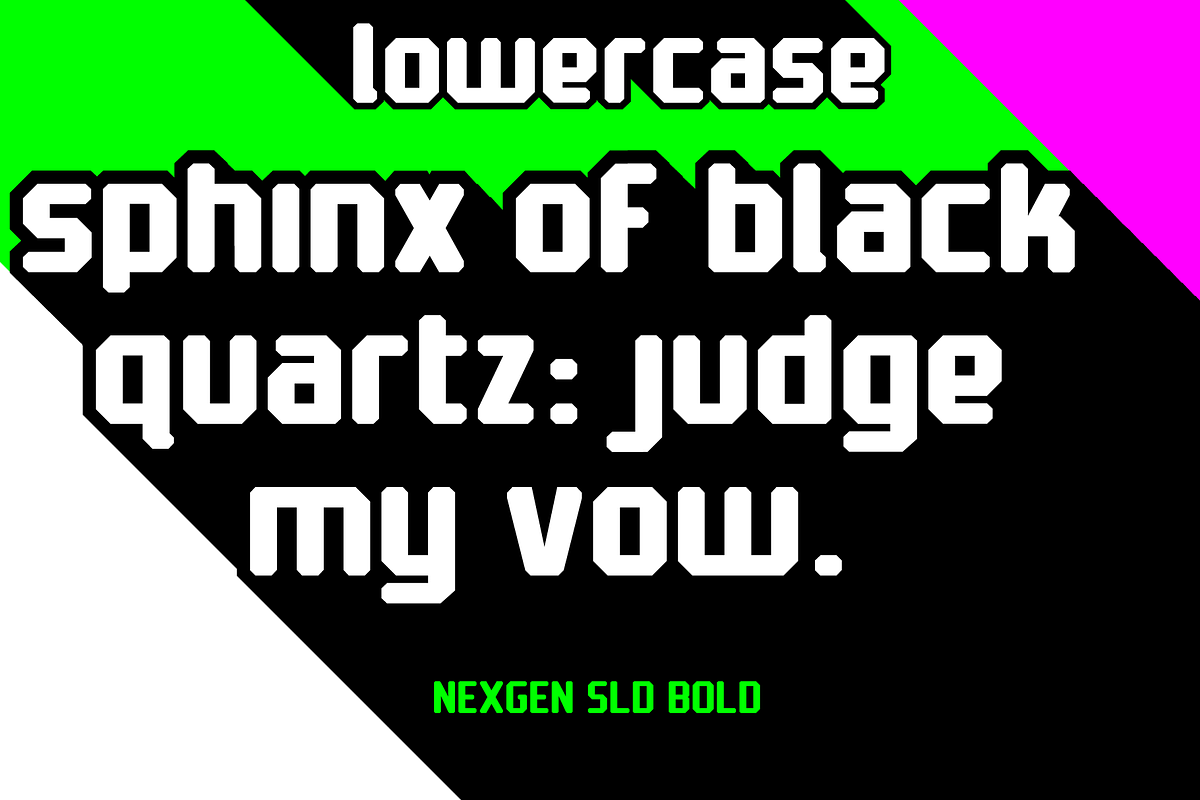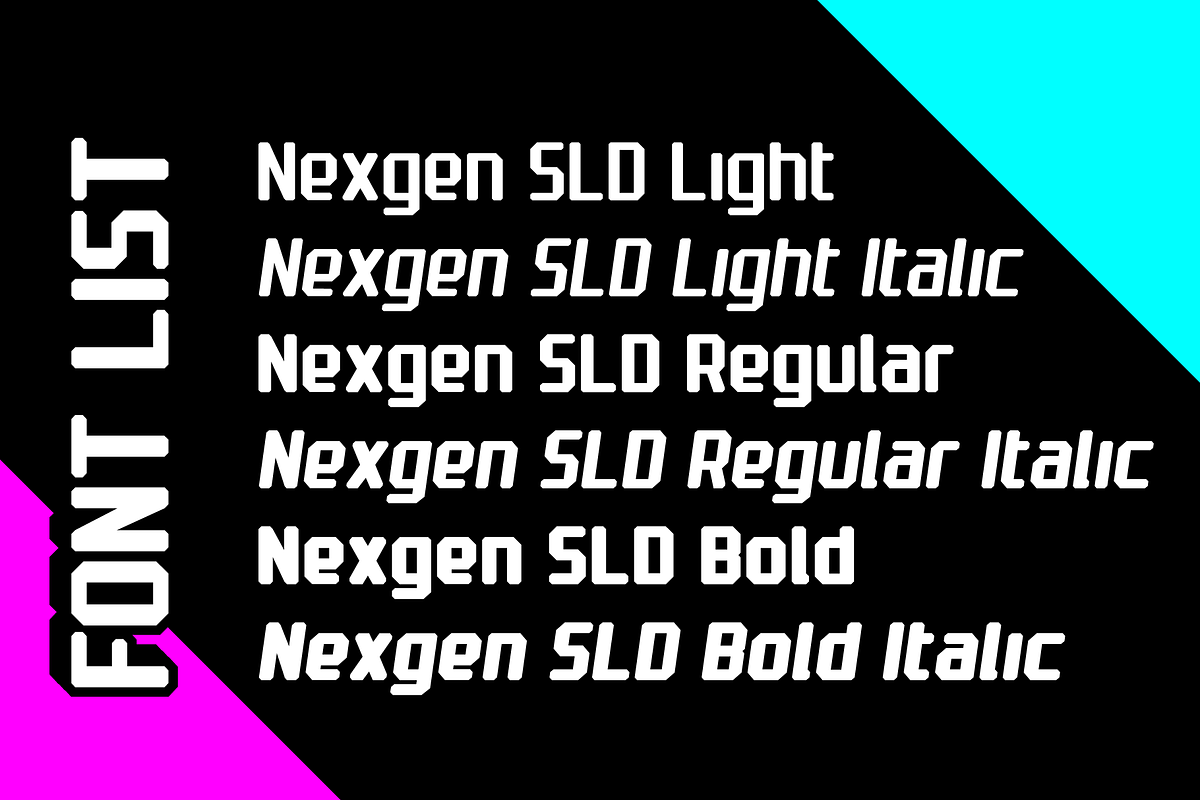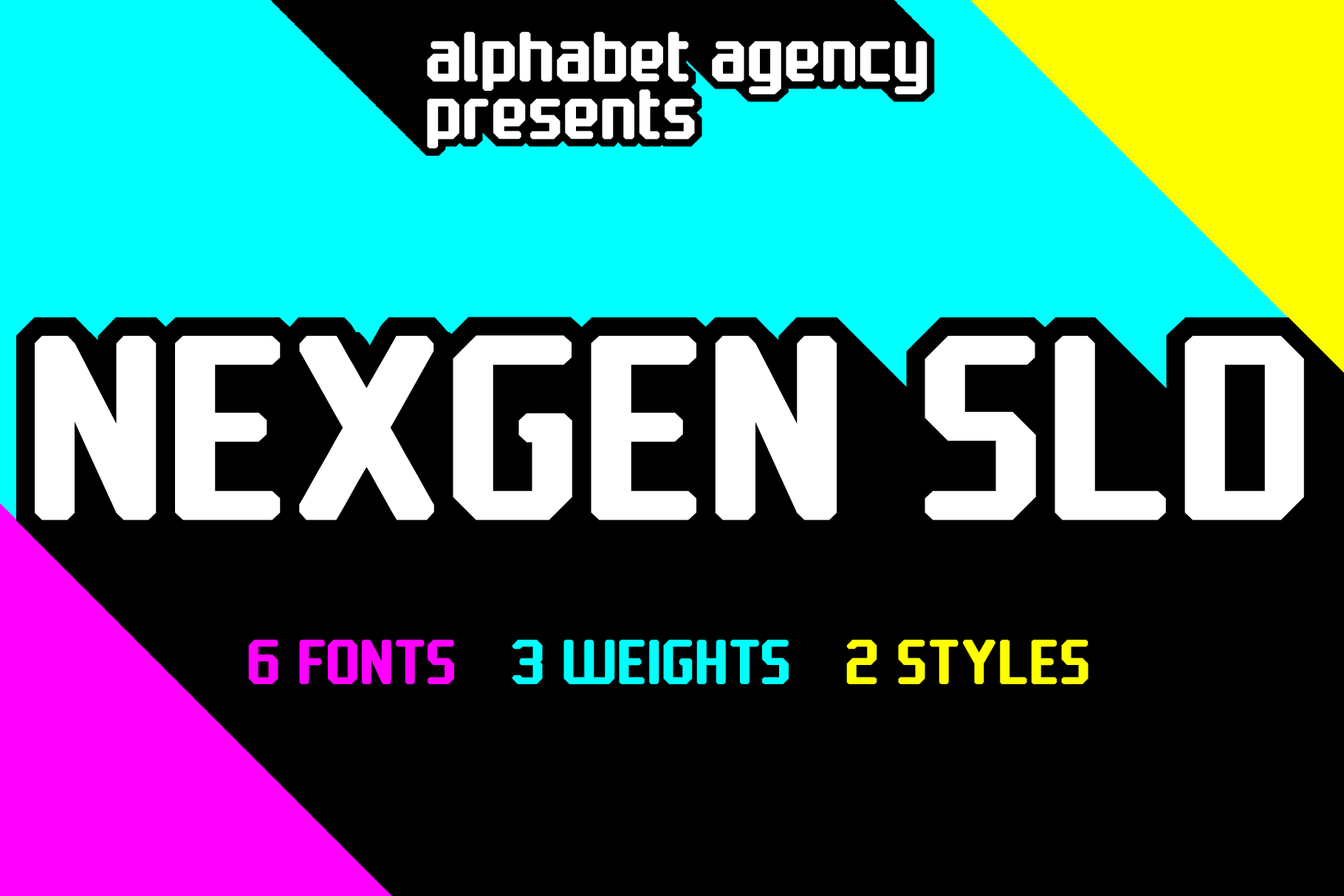
Nexgen SLD Font Family
Alphabet Agency proudly present the Nexgen SLD font family. The family contains 6 fonts in 3 weights and 2 styles (regular and italic). The fonts are a modern sans serif design that present clean and solid characters that allow the fonts to be easily read. The strong look makes the fonts useful for headlines and the different weights and styles provide options to add variety to your work.
Each font includes a large number of punctuation characters, Latin international letters and other extras.
The fonts work great in a number of areas including events, technology, science, and sports themes.